GenZ Fashion
Fashion for the future
GenZ, our favorite clothing company, is a bright tapestry of self-expression and flair. It's more than simply apparel; it's a platform for self-expression. At GenZ, we understand the attitude of today's young people, the daring GenZ generation, who are more than simply fashion savvy; they're trend setters in their own way. Our brand represents their drive to stand out, their appreciation of street culture, and their quest for apparel that reflects their distinct personalities.
The decision to go with a quirky, street-wear look with a modern combo logo was deliberate. We discovered that this design wonderfully captures the spirit, excitement, and genuineness of our audience. It's a look that welcomes variety, speaks the language of city living, and combines tradition and the contemporary. We're dedicated to being current and defining Gen Z fashion trends. This choice of style is about connecting with the heart and soul of our audience, which is what makes Gen Z more than simply a brand; it's a movement.
Visual Identity
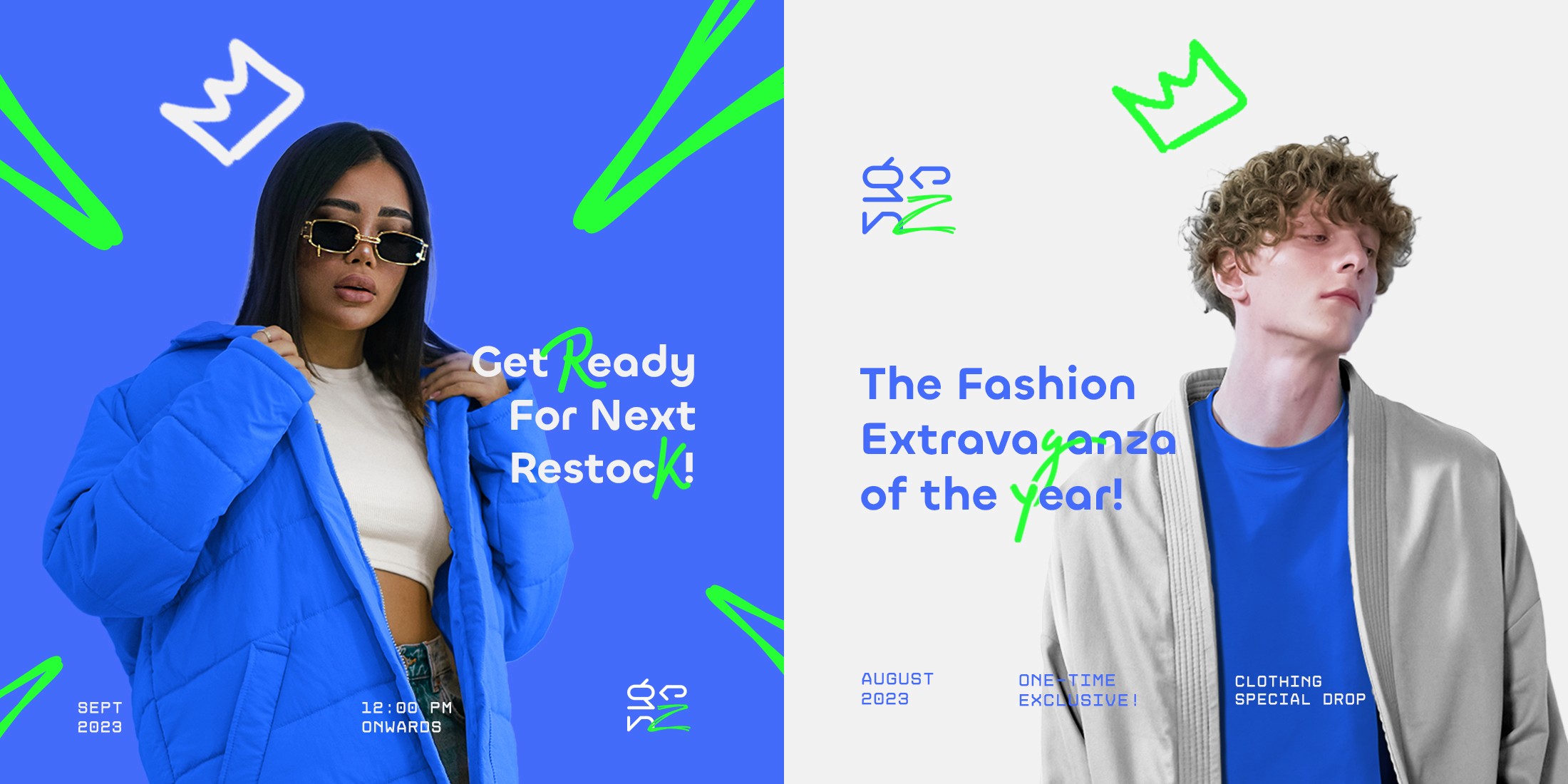
Creative Process
The process of developing the GenZ logo was a methodical one that began with a thorough grasp of the brand's fundamental identity and competitive landscape. We undertook thorough research on Gen Z's ideals, objectives, and the distinct niche it sought to occupy in the fashion business. We reached a critical choice after researching the brand, competitive environment, and targeted advertising: the logo needed to achieve a harmonic balance between modernism and eccentricity.
Our design team set out on a creative journey, combining modern design elements with a splash of quirkiness. This union resulted in the characteristic brushstroke "Z," which represents Quirkiness, while the elegant "gen" preserved a touch of modernism. We were able to build a logo that not only pays tribute to Gen Z's beginnings but also connects strongly with the dynamic spirit of the generation it caters to, making it an icon of timeless and cutting-edge fashion.